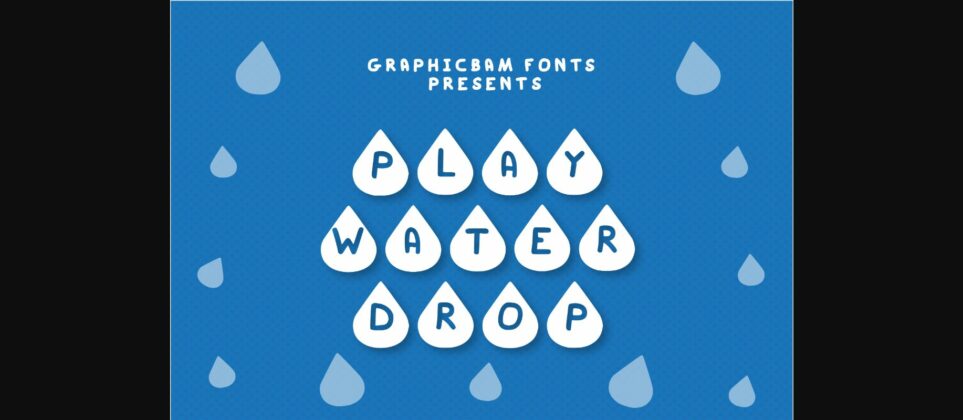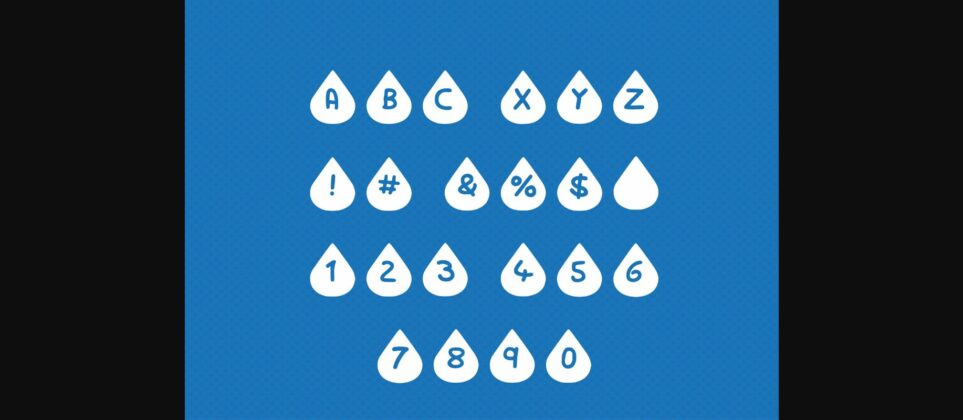
About Play Water Drop Font
Play Water Drop is a cool looking and interesting decorative font, featuring a water drop on each character. No matter the topic, this font will be an incredible asset to your fonts’ library, as it has the potential to elevate any creation.